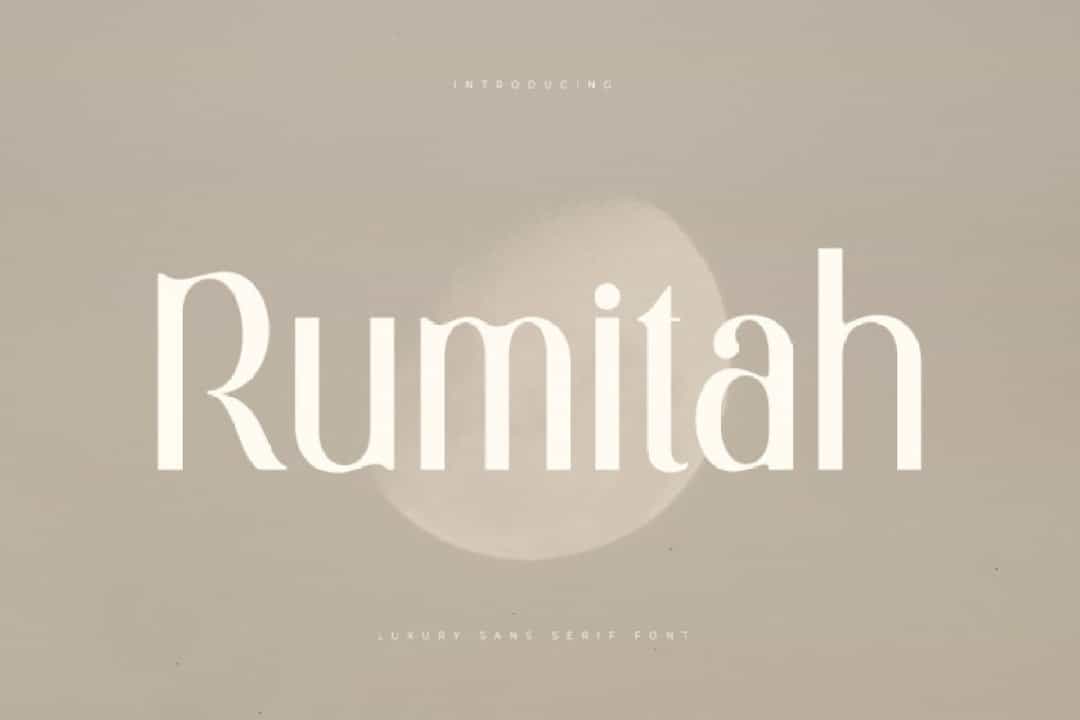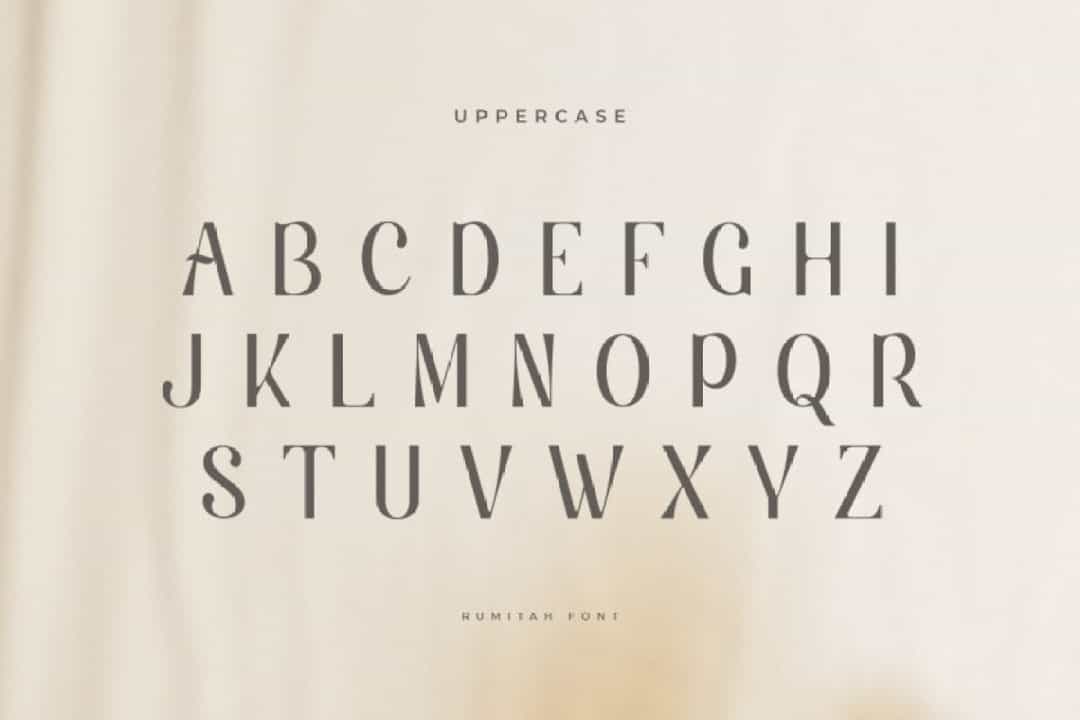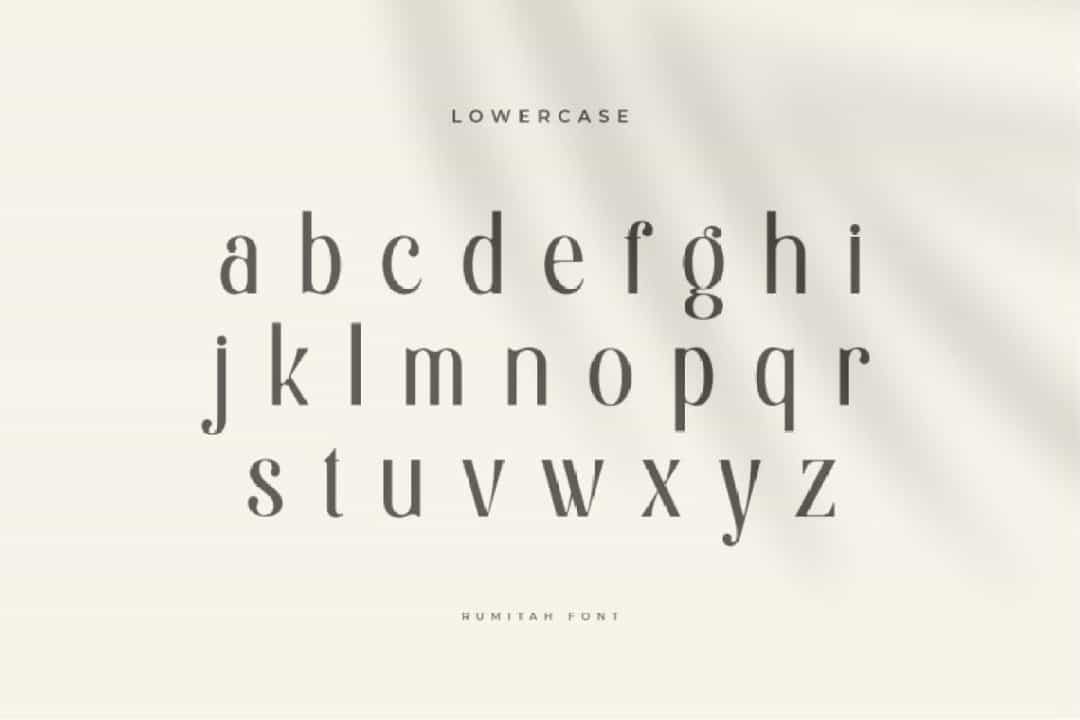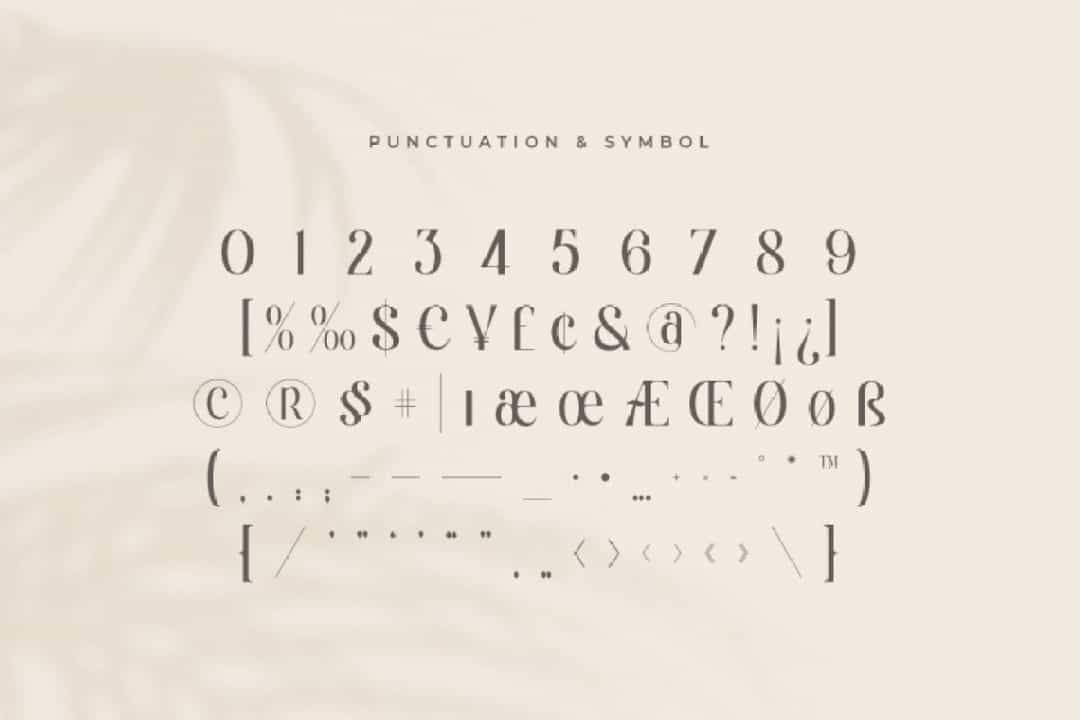
Rumitahis is a luxurious yet classy modern sans serif font that’s ready to add value to any business. Perfect for headlines or logos that need an elegant and striking design that draws customers in.